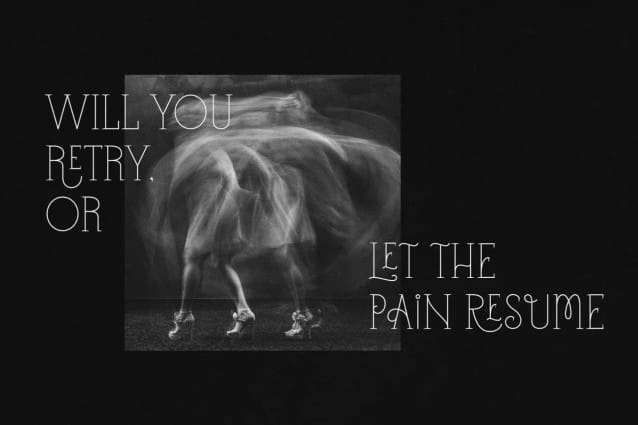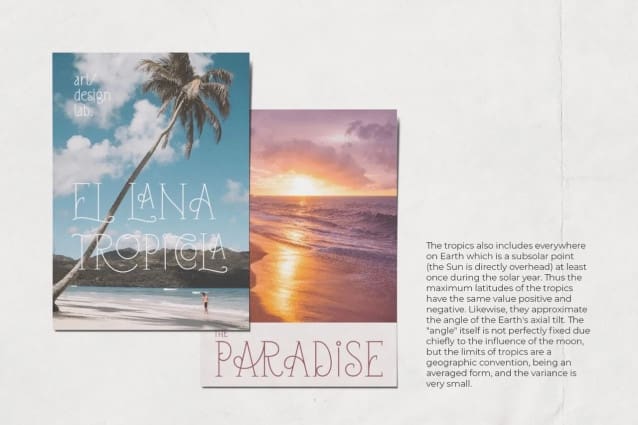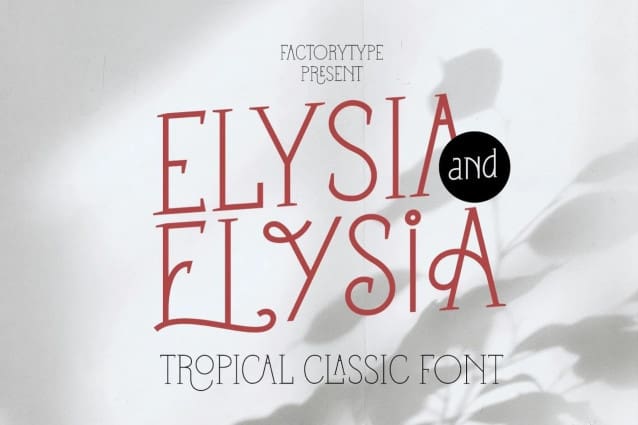
Elysia Font
Elysia Font is a fresh, contemporary font inspired by neogothic, vintage letterforms. The two-face personality of this font can be used for a wide range of projects. It can be used for wedding invitations, branding, magazine illustrations or just to add some fun and personality to your next project.